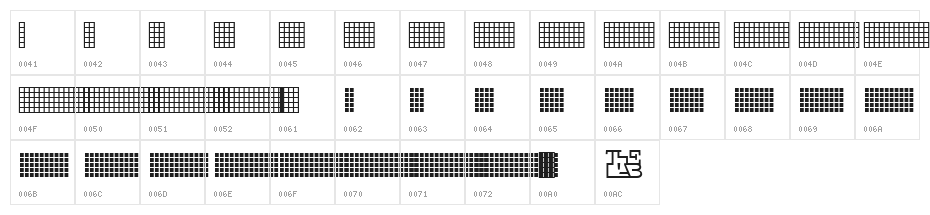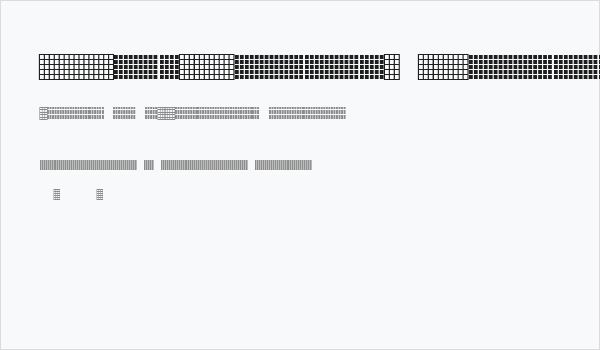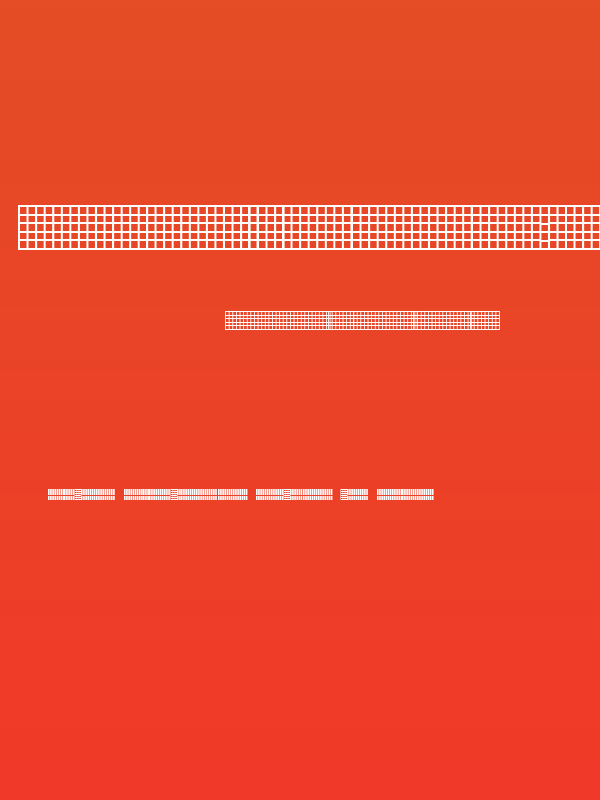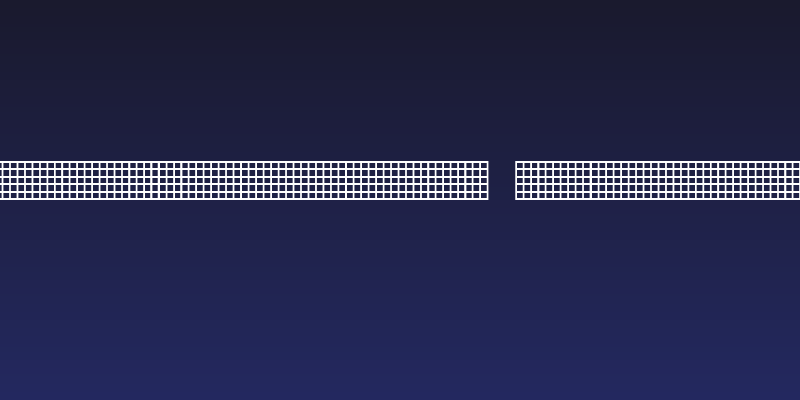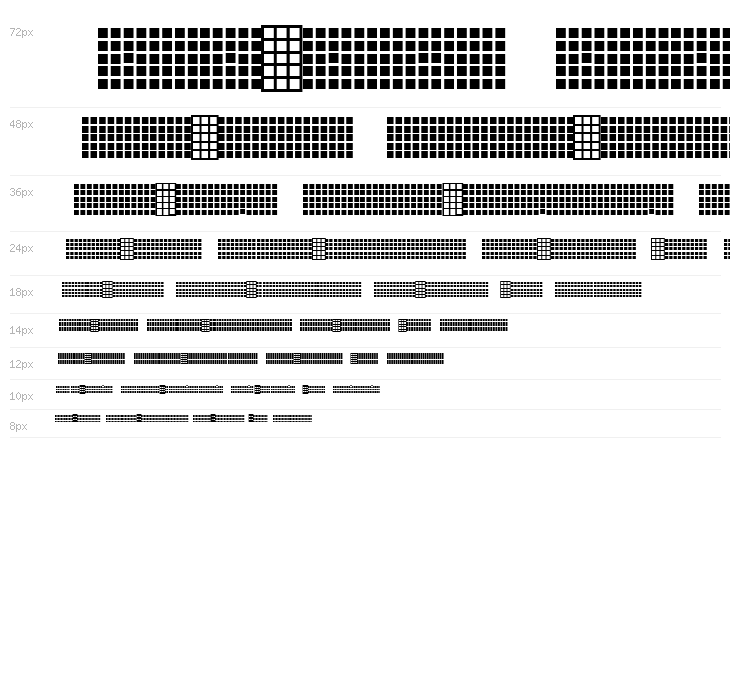
Pica Hole - Grids Font
Pica Hole - Grids Description
A grid pattern consisting of evenly spaced small square holes arranged in rows and columns, resembling a pica hole grid layout.
| Overall Style | Technical, utilitarian |
| Use Case | Background grids, alignment guides, technical illustrations |
| Proposed Projects | Technical drawings, architectural plans, design templates, or backgrounds requiring precise grid alignment. |